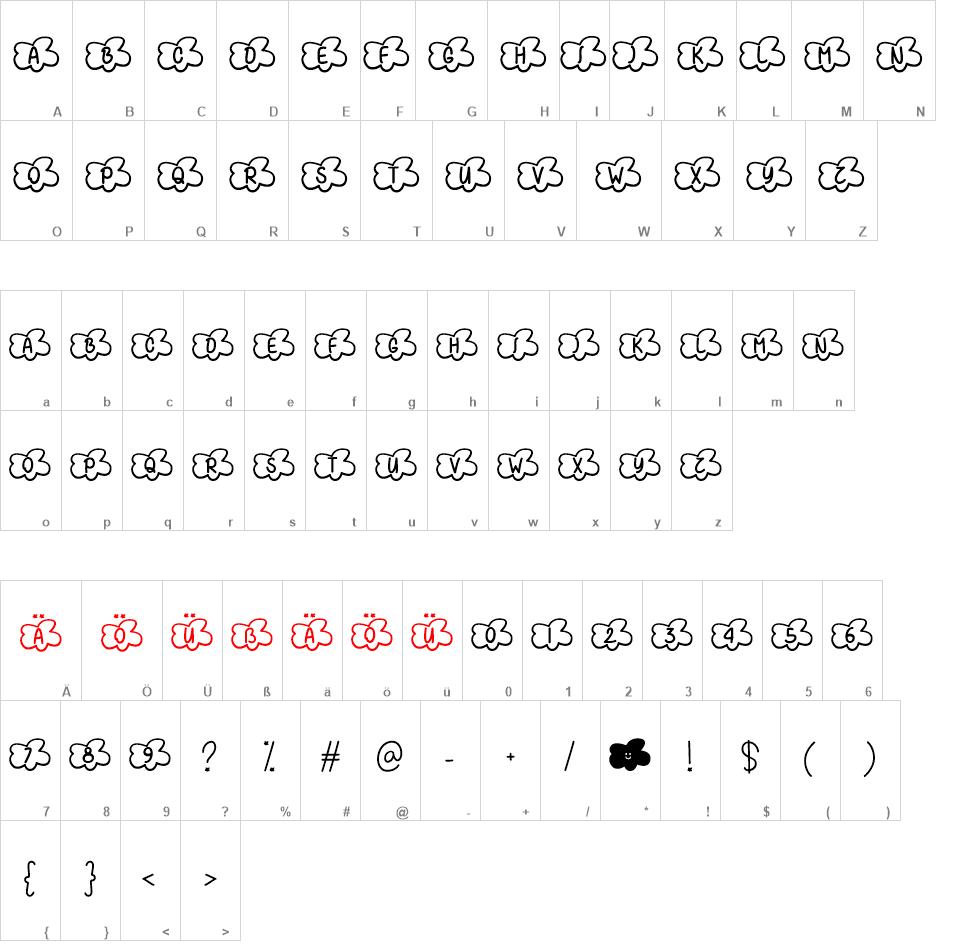
Clouds Smile Too
SPECIAL SYMBOLS
Type * (asterisk) for the solid cloud smiley
Type _ (underscore) for the open cloud smiley
Type ~ (tilde) for the drop shadow smiley cloud
Type (backslash) for the solid cloud
Type | (vertical bar) for the open cloud